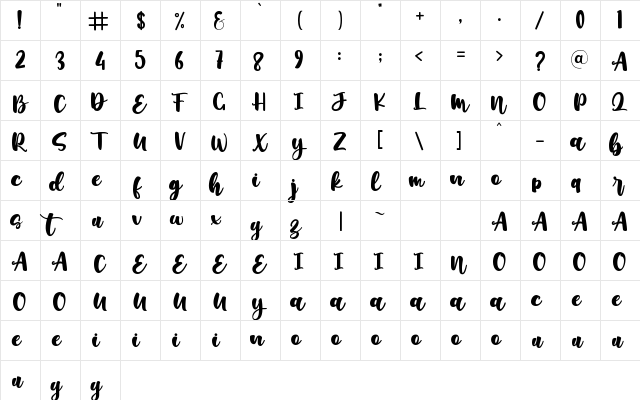
Betharia Regular
| Foundry | Markonah Creative |
| Designer | Herman |
Design Context for Betharia Typeface
Betharia is a composed and adaptable typeface that performs quietly and consistently across a wide range of design contexts.